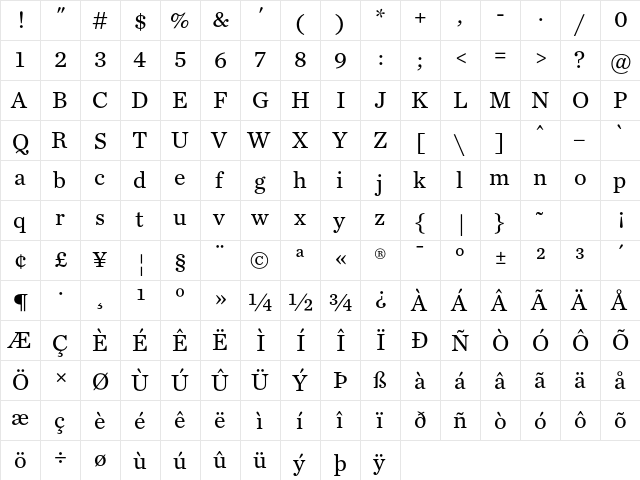
Chronicle Text G2 Roman
| Foundry | Hoefler & Frere-Jones |
| Designer | Hoefler & Frere-Jones |
Design Context for Chronicle Text G2 Typeface
Chronicle Text G2 is a composed and adaptable typeface that performs quietly and consistently across a wide range of design contexts.